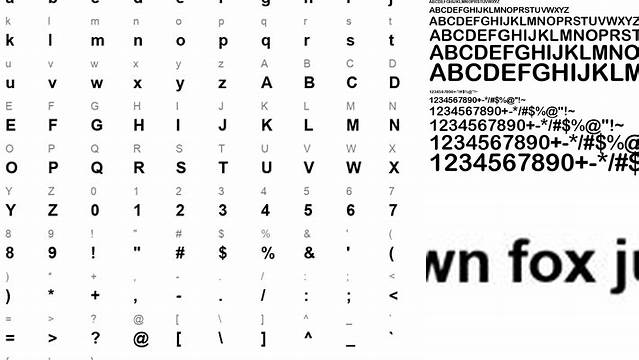
Hey guys! Are you looking for the Arial Unicode Bold font and scratching your head about where to find it for free? Well, you've landed in the right place! In this article, we’re going to dive deep into everything you need to know about this versatile font, where you can download it for free, and how to make the most of it in your projects. Arial Unicode Bold is a fantastic typeface that’s widely used for its readability and comprehensive character set, making it a go-to choice for designers, developers, and anyone working with multilingual content. It supports a vast array of characters, including those from various languages and scripts, which is why it’s so popular across different platforms and applications. We'll break down the importance of using the right fonts, the specifics of Arial Unicode Bold, and provide you with a step-by-step guide on how to snag it without spending a dime. So, let's get started and unlock the full potential of this amazing font!
Choosing the right font can seem like a small detail, but it can significantly impact how your message is received. Think of fonts as the voice of your text – they convey tone, style, and personality. A clean and legible font like Arial Unicode Bold ensures that your content is easily readable, which is crucial for effective communication. Whether you're working on a professional document, a website, or a creative project, the font you choose sets the stage for how your audience perceives your work. Arial Unicode Bold, with its clear and straightforward design, lends a sense of professionalism and clarity to any project. It’s particularly useful in scenarios where you need to present information in a no-nonsense, easily digestible manner. For example, in business reports, technical manuals, or academic papers, Arial Unicode Bold ensures that your content is taken seriously and understood without any ambiguity. Moreover, the bold weight adds emphasis and helps highlight important sections, making it easier for readers to scan and grasp key points quickly. The versatility of Arial Unicode Bold extends beyond just professional documents. It’s also an excellent choice for websites and digital interfaces, where readability is paramount. A well-chosen font can improve the user experience by making content more accessible and engaging. In a world where attention spans are shrinking, a font that is easy on the eyes can make the difference between someone staying on your page or clicking away. Arial Unicode Bold, with its clean lines and even spacing, reduces eye strain and allows readers to focus on the content itself. In addition to its readability, Arial Unicode Bold's extensive character set makes it a valuable asset for multilingual projects. It supports a wide range of languages and scripts, allowing you to create content that speaks to a global audience without having to switch between different fonts. This is particularly important in today's interconnected world, where businesses and organizations are increasingly communicating with diverse audiences. Using a font that supports multiple languages ensures consistency and professionalism across all your communications. From presentations and marketing materials to international websites and documentation, Arial Unicode Bold provides the reliability and versatility you need to connect with people from different linguistic backgrounds. So, whether you're a seasoned designer, a business professional, or just someone who appreciates the importance of clear communication, understanding the power of fonts and choosing the right one is essential. Arial Unicode Bold stands out as a reliable and versatile choice that can enhance the effectiveness of your written content.
So, what exactly is Arial Unicode Bold? Let's break it down, guys. Arial Unicode Bold is a sans-serif typeface, which means it doesn't have those little decorative strokes (serifs) at the end of the letters that you might see in fonts like Times New Roman. This gives it a clean, modern look, making it super readable on screens and in print. What sets Arial Unicode Bold apart is its massive character set. It includes glyphs for a vast array of languages, scripts, and symbols, which means you can use it for multilingual projects without any hiccups. It's like the Swiss Army knife of fonts! This makes it incredibly versatile for everything from business documents to web design and graphic projects. Arial Unicode Bold is a variation of the popular Arial font family, designed specifically to support a wide range of characters and languages. This means it includes glyphs not just for Latin characters (like those used in English, Spanish, and French), but also for Cyrillic, Greek, Hebrew, Arabic, and many other scripts. This comprehensive support makes it an invaluable tool for anyone working with international content or needing to display special characters and symbols. The bold weight adds extra emphasis, making it ideal for headings, titles, and any text you want to stand out. The clarity and legibility of Arial Unicode Bold make it a favorite in both digital and print media. Its clean lines and uniform letterforms ensure that text remains readable even at small sizes or on low-resolution screens. This is particularly important for websites, mobile apps, and other digital interfaces where user experience is paramount. The font's neutrality also makes it a versatile choice that can fit seamlessly into a variety of design styles and contexts. Whether you're creating a formal business report or a modern website layout, Arial Unicode Bold can adapt to your needs without overpowering the overall design. In addition to its practical benefits, Arial Unicode Bold also boasts a rich history and legacy. It was originally designed by Monotype in 1982 as a competitor to the popular Helvetica font. Over the years, it has become one of the most widely used typefaces in the world, thanks to its inclusion in Microsoft Windows and other operating systems. This widespread availability has made it a familiar and trusted choice for millions of users. Its ubiquity also means that Arial Unicode Bold is compatible with virtually any software or platform, ensuring that your documents and designs will display correctly across different devices and systems. This level of compatibility is a significant advantage, especially in collaborative projects where multiple people may be using different software or operating systems. Arial Unicode Bold's comprehensive character set also makes it a valuable resource for academic and research work. It allows scholars and researchers to accurately represent texts from various languages and historical periods, ensuring that their work remains faithful to the original sources. From ancient manuscripts to contemporary literature, Arial Unicode Bold can handle a wide range of linguistic and textual challenges. Its ability to display special characters and symbols also makes it useful for scientific and technical writing, where precise notation is essential. So, whether you're a designer, a developer, a writer, or a student, Arial Unicode Bold offers a combination of versatility, readability, and compatibility that is hard to beat. Its ability to handle multiple languages and scripts makes it an indispensable tool for anyone working in a globalized world. And its clean, modern design ensures that your message is always delivered clearly and effectively.
Okay, so why should you specifically use Arial Unicode Bold? There are tons of fonts out there, right? Well, here’s the lowdown, guys. First off, the extensive character support is a game-changer. If you're dealing with multiple languages or need special symbols, this font has got your back. No more weird boxes or missing characters! It just works. Secondly, its readability is top-notch. The clean, sans-serif design ensures your text is easy to read, whether it's on a screen or printed out. This is crucial for everything from presentations to reports to websites. Thirdly, Arial Unicode Bold is universally compatible. Because it's included in many operating systems and software packages, you can be confident that your documents and designs will look the same on any device. This is a huge time-saver and reduces the risk of formatting issues. Arial Unicode Bold's comprehensive character set is one of its standout features, making it an essential tool for anyone working with multilingual content or needing to display specialized symbols. In today's globalized world, the ability to communicate effectively across different languages and cultures is more important than ever. Arial Unicode Bold supports an extensive range of scripts and languages, including Latin, Cyrillic, Greek, Hebrew, Arabic, and many more. This means you can create documents, websites, and other materials that are accessible to a diverse audience without having to switch between multiple fonts. This not only saves you time and effort but also ensures consistency in your branding and messaging. The wide range of supported characters also makes Arial Unicode Bold ideal for technical and scientific writing. Whether you need to display mathematical symbols, phonetic characters, or other specialized notation, this font has you covered. Its versatility extends to various industries and fields, making it a valuable asset for professionals in diverse roles. From international business and marketing to education and research, Arial Unicode Bold provides the linguistic support you need to communicate clearly and effectively. Beyond its extensive character support, Arial Unicode Bold excels in readability. Its clean, sans-serif design ensures that text remains legible even at small sizes or on low-resolution screens. This is crucial for a wide range of applications, including web design, mobile apps, and printed materials. A font's readability directly impacts the user experience, and Arial Unicode Bold's clear and straightforward letterforms minimize eye strain and make it easier for readers to focus on the content. This is particularly important for lengthy documents, websites with a lot of text, and presentations where clear communication is essential. The bold weight adds emphasis and helps highlight important sections, making it easier for readers to scan and grasp key points quickly. Its combination of clarity and emphasis makes it an excellent choice for headings, titles, and other text elements that need to stand out. In addition to its functional benefits, Arial Unicode Bold is also universally compatible, making it a reliable choice for collaborative projects and professional communications. Because it's included in many operating systems and software packages, you can be confident that your documents and designs will display correctly on virtually any device. This eliminates the risk of formatting issues or font substitutions, ensuring that your message is always presented as intended. This compatibility is particularly valuable in collaborative environments where multiple people may be using different software or operating systems. Arial Unicode Bold's widespread availability means that everyone can view and edit your documents without any compatibility issues. Whether you're sharing files with colleagues, clients, or partners, you can trust that Arial Unicode Bold will deliver consistent results. This level of compatibility not only saves time and effort but also enhances your professional image by ensuring that your communications are always polished and professional.